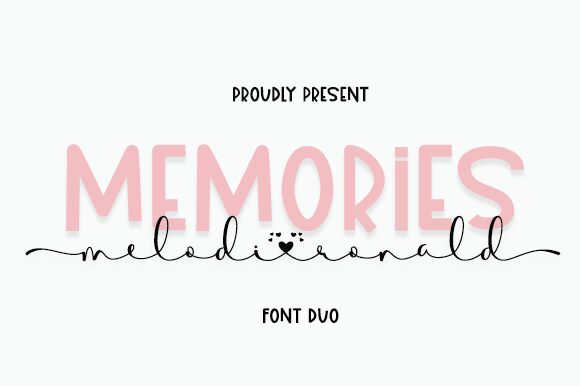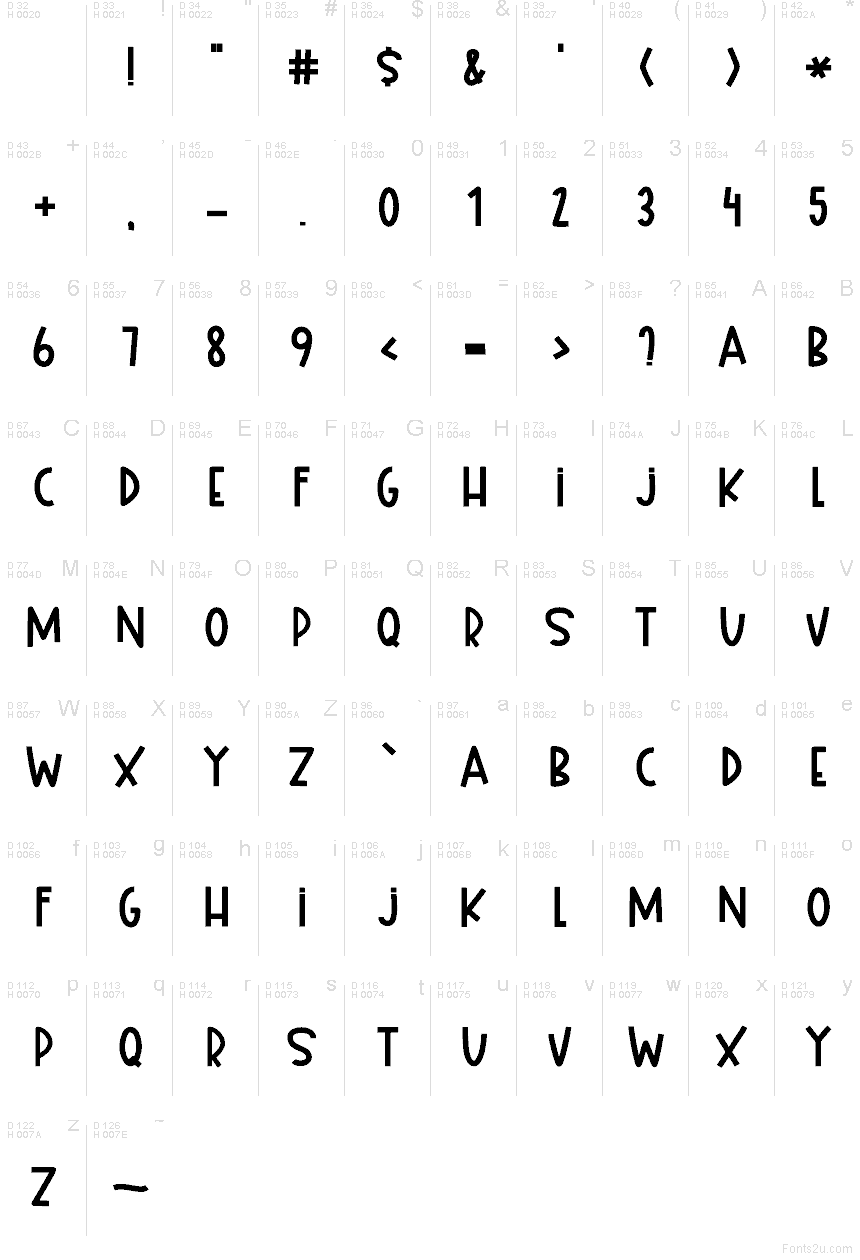
Memories Display font by Danar Nugroho of Jauzadesign is a free comic display typeface that keeps all the fun of hand-drawn lettering while staying clean and easy to read. Its tall, narrow letters, slightly uneven strokes, and subtle wobble feel like they were brushed onto a poster, but the spacing is tight and orderly enough for real-world layouts. You get personality without chaos, so headlines stay punchy instead of messy.
Using Memories Display, you can bring warmth to children’s book covers, playful branding, posters, greeting cards, social media graphics, and event invitations. This free font shines when you set it large and give it room to breathe, then support it with a simple sans serif for body copy. It’s an easy way to add cozy, handwritten energy to projects that still need to look polished and professional.